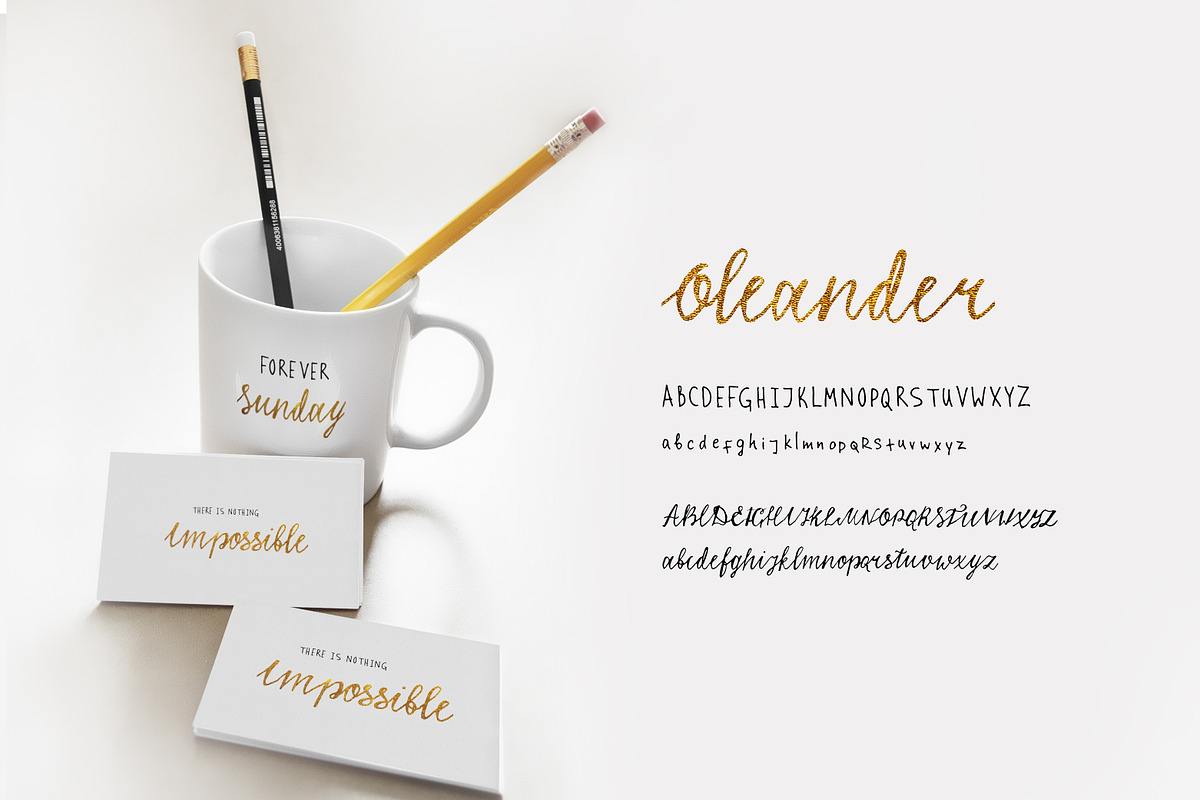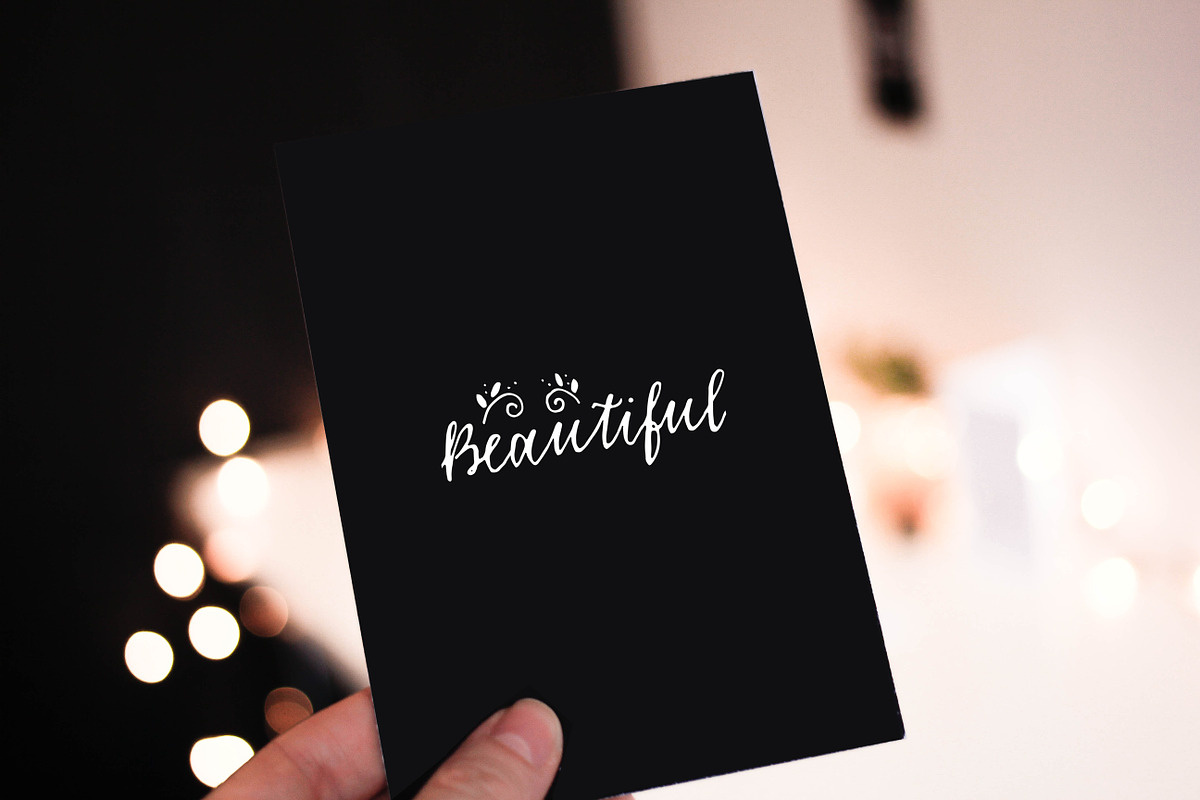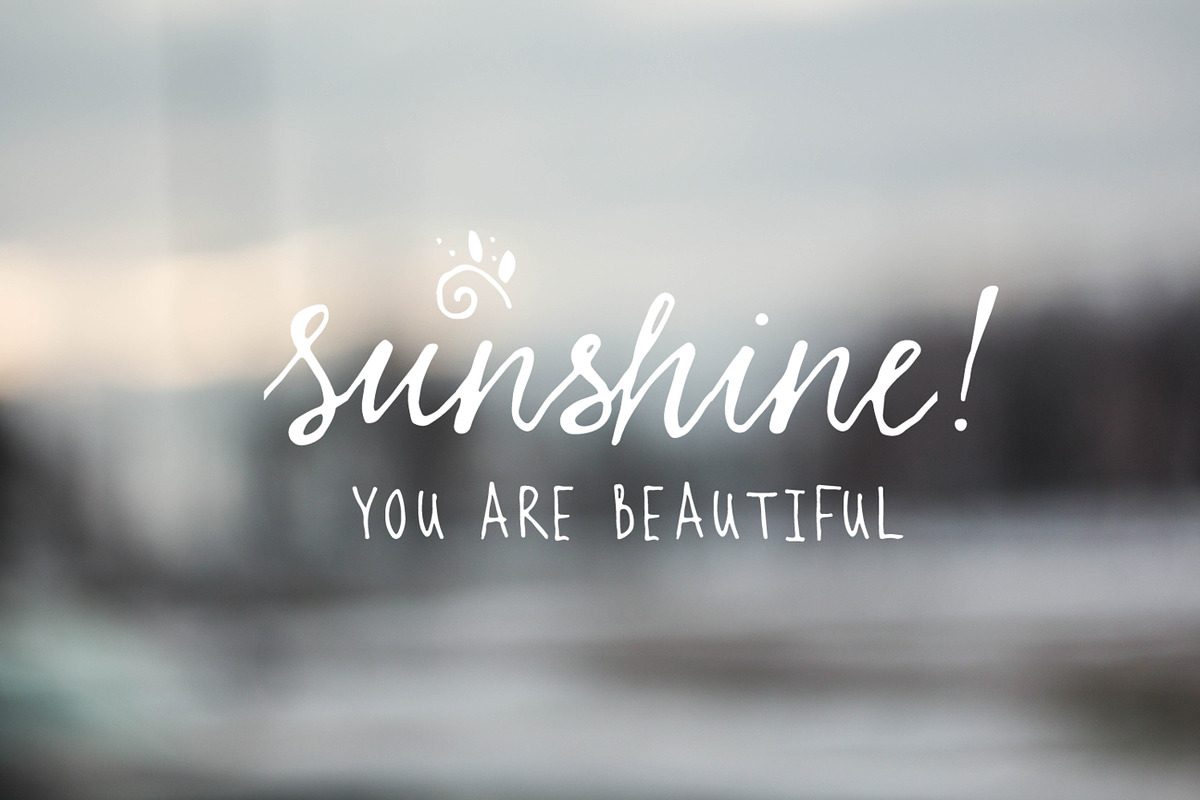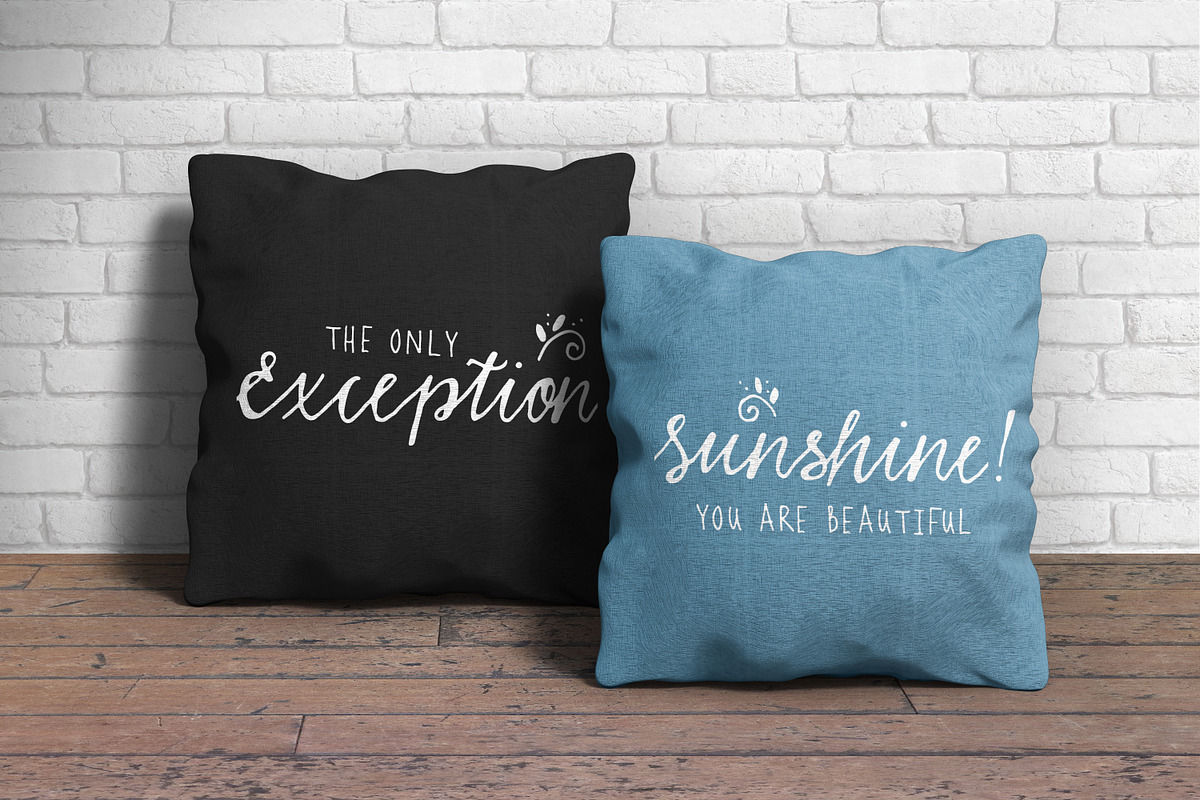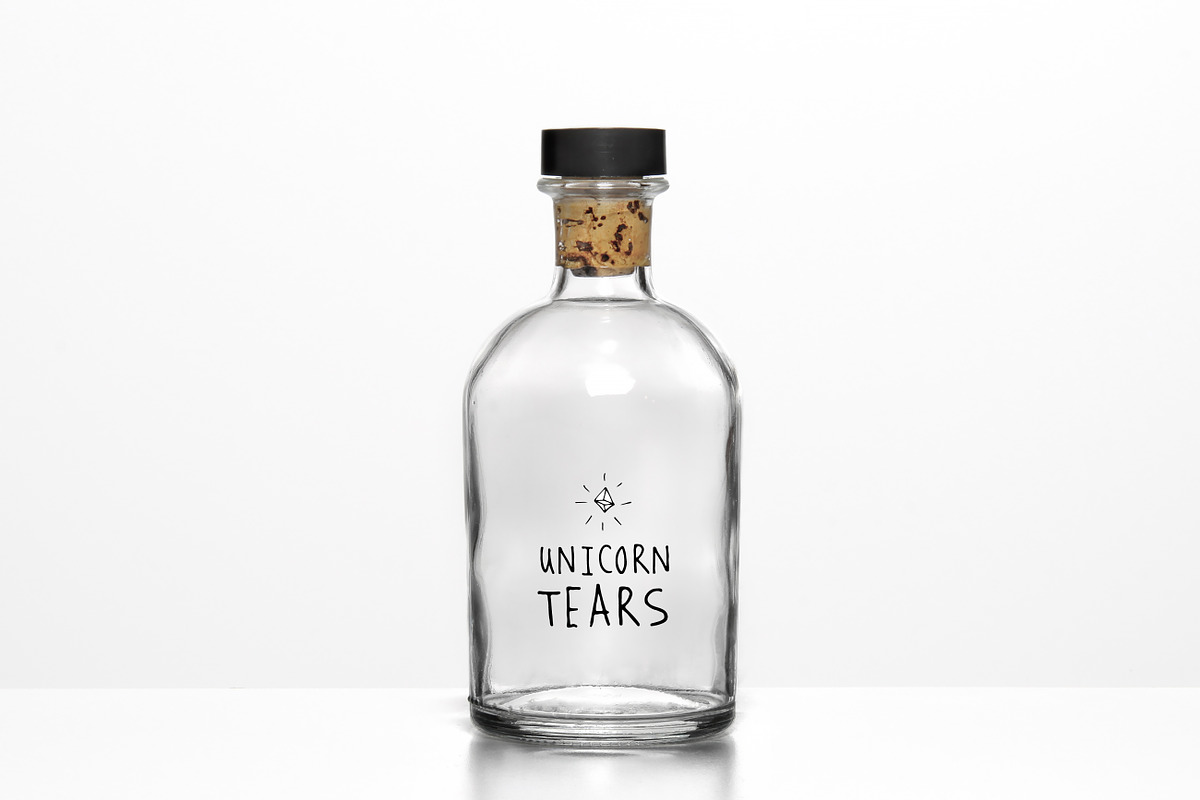
Oleander font (2 versions)
Oleander font (2 versions) by Marie Smth is a font selected for branding, posters, packaging, typography.
Why Oleander font (2 versions) is worth a look
Oleander font (2 versions) by Marie Smth fits naturally into Branding, posters, packaging, typography.